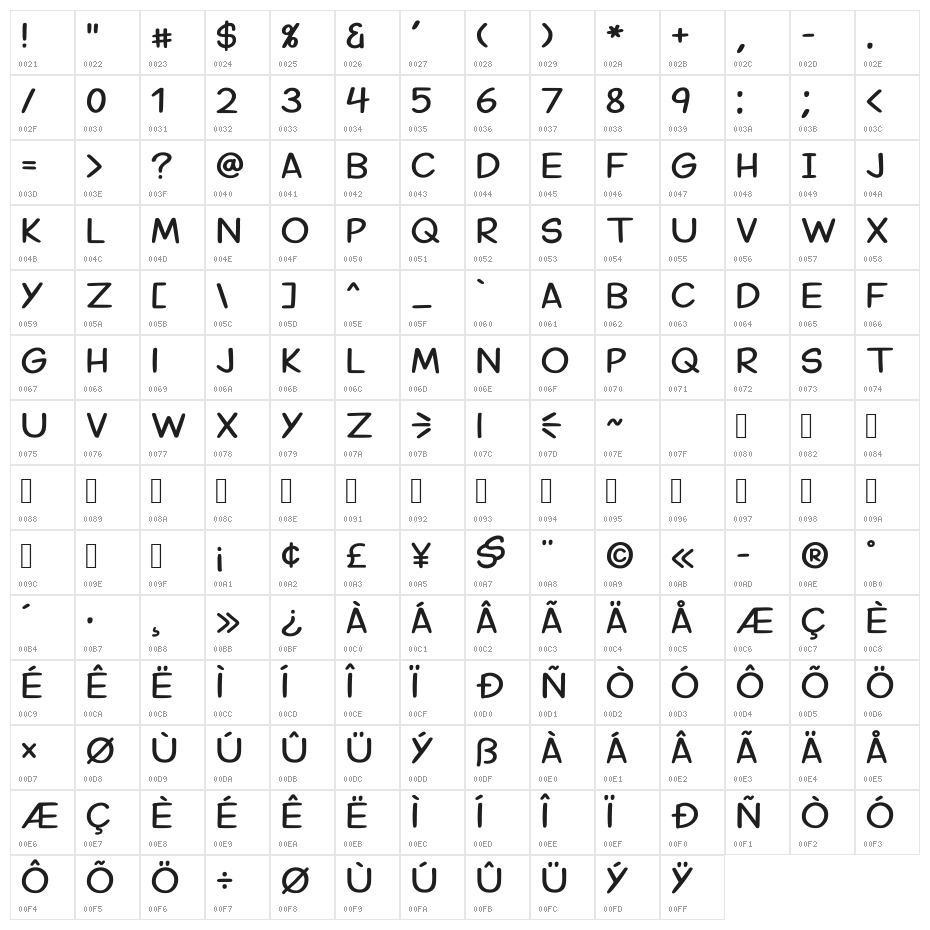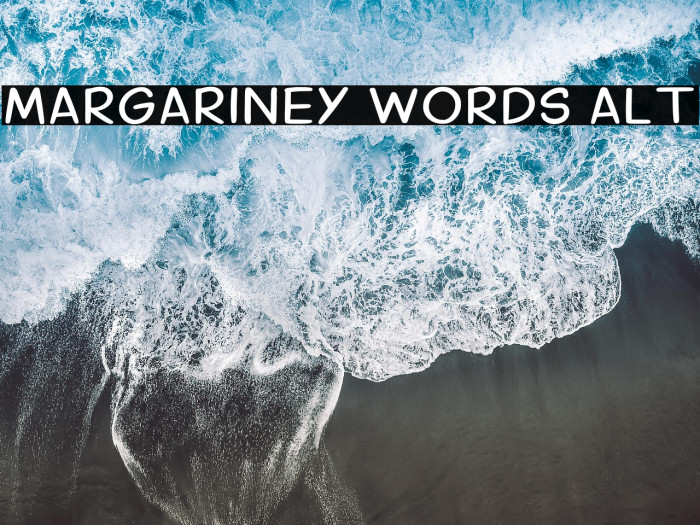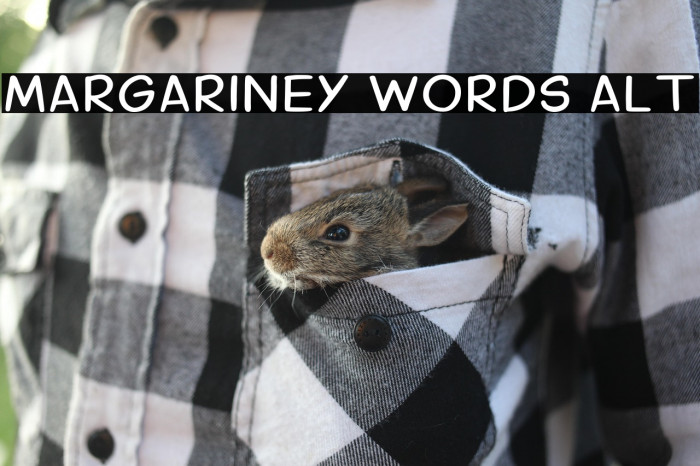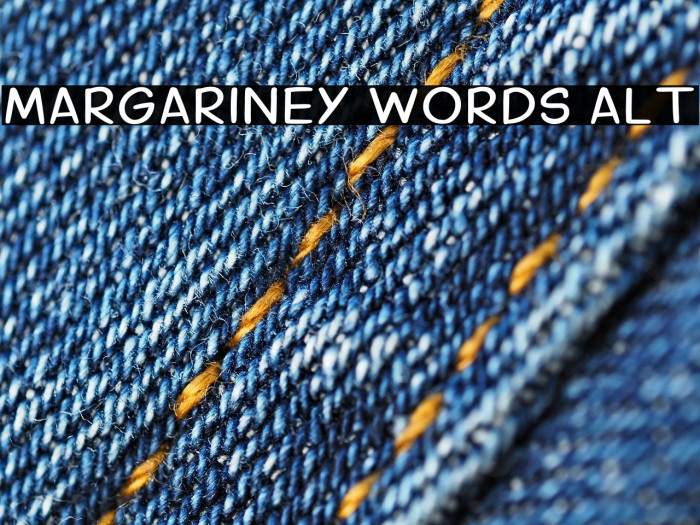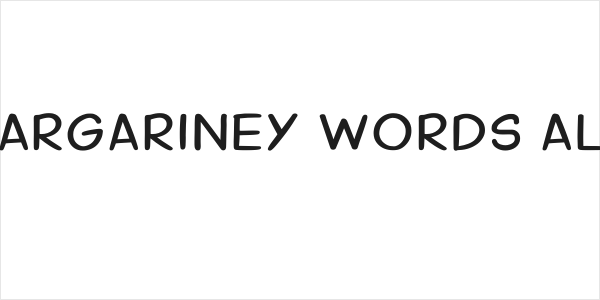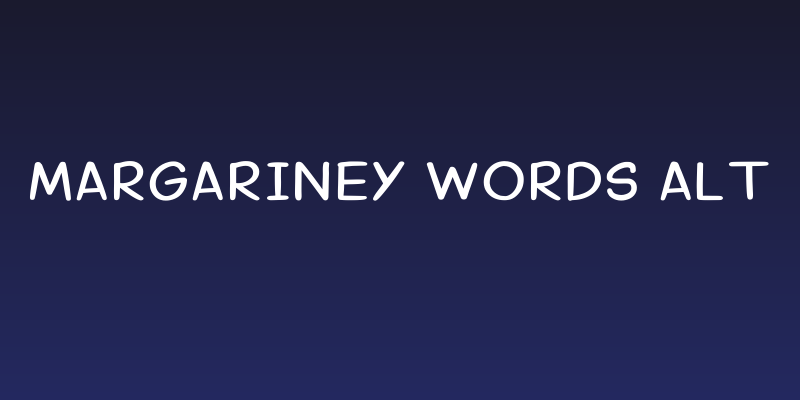
Margariney Words Alt Font
Margariney Words Alt Description
This playful and casual font features rounded, smooth edges and a handwritten style that exudes a friendly and approachable vibe. The characters are slightly slanted, giving them a dynamic and informal appearance. The uppercase and lowercase letters maintain a consistent style, with a slight variation in size and shape that adds to the font's charm. The numerals are bold and clear, ensuring readability. Special characters are well-integrated, maintaining the overall aesthetic. This font is perfect for projects that require a personal touch or a fun, relaxed atmosphere.
| Proposed Projects | Ideal for greeting cards, children's books, playful branding, and social media graphics. |